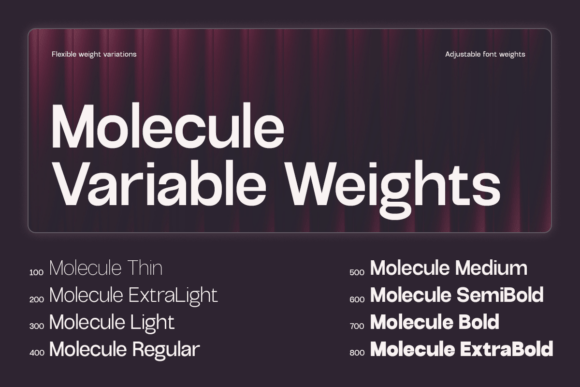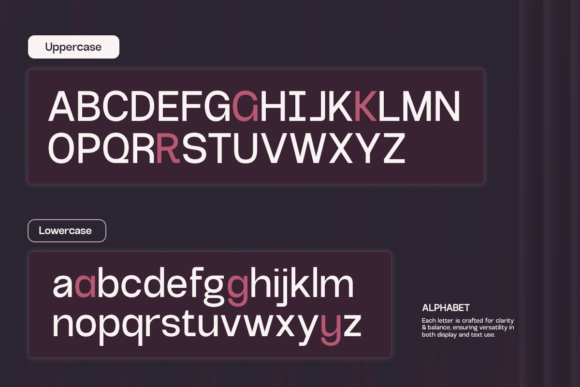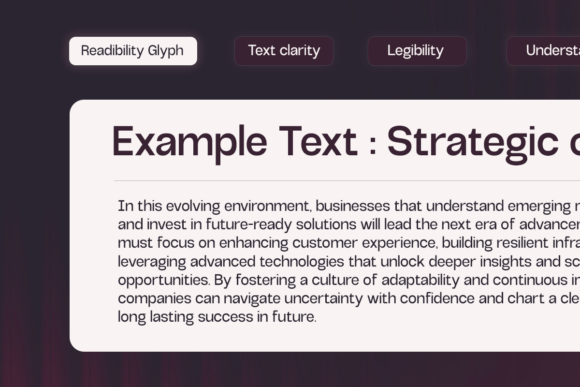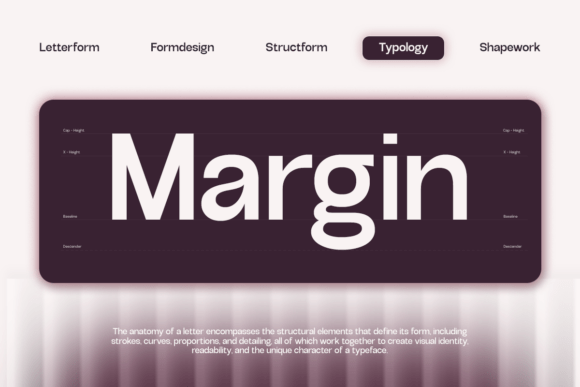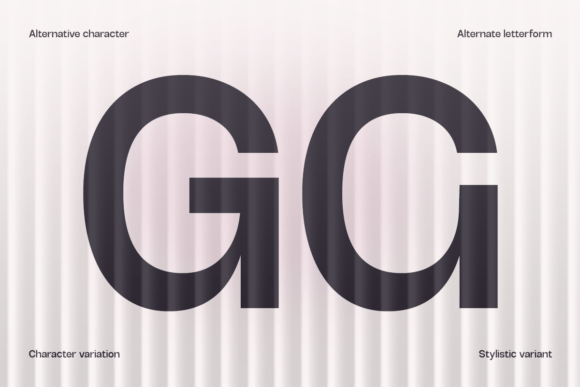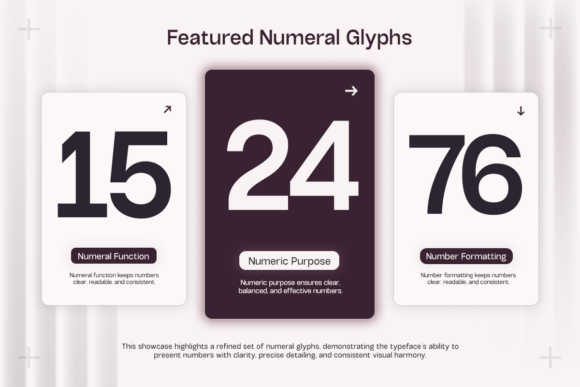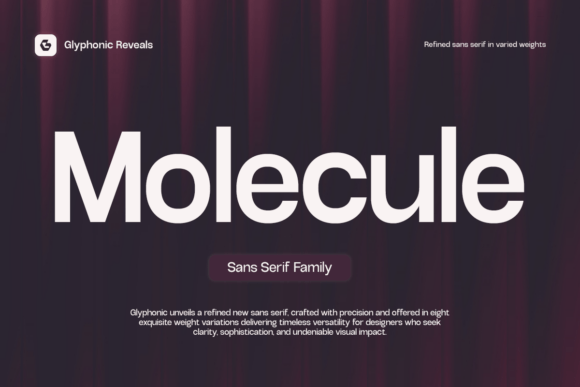
GC Molecule – Elevate Your Design with Refined Sans Serif Typography
In the realm of typography, a well-crafted font can elevate a design from ordinary to extraordinary. Introducing **GC Molecule – Refined Sans Serif**, a modern, clean, and precisely crafted typeface designed to bring clarity, refinement, and versatility to your projects. With its smooth geometry and balanced stroke details, **GC Molecule** offers a polished and contemporary voice that performs beautifully across both print and digital environments.
Designed for Clarity and Refinement
Created to embody refined simplicity without sacrificing character, **GC Molecule** is ideal for a wide range of applications, including branding, editorial layouts, technology-driven projects, minimalist design systems, and sleek visual identities. Its harmonious proportions and careful detailing make this typeface adaptable yet uniquely distinctive, ensuring that your designs stand out with sophistication and modernity.
Key Features of GC Molecule
- Modern and Clean Design: **GC Molecule** boasts a contemporary sans serif design, characterized by smooth lines and a minimalist aesthetic that ensures your typography is both current and timeless.
- Versatile Usability: Whether you’re building sharp interface designs, bold headlines, or clean and minimalistic posters, **GC Molecule** brings effortless elegance to your typography, making it suitable for a variety of projects.
- Balanced Stroke Details: The typeface features carefully balanced stroke details, providing a polished look that enhances readability and visual appeal across different mediums.
- Harmonious Proportions: The design of **GC Molecule** emphasizes harmonious proportions, ensuring that text sets are clear, readable, and aesthetically pleasing.
Applications of GC Molecule
The versatility of **GC Molecule – Refined Sans Serif** makes it an excellent choice for various design projects. Here are some of the key areas where this typeface shines:
- Branding: Establish a strong and modern brand identity with **GC Molecule**. Its clean and refined appearance makes it perfect for logos, wordmarks, and brand guidelines.
- Editorial Layouts: Enhance the readability and visual appeal of editorial content, such as magazines, newspapers, and digital publications, with the clear and elegant design of **GC Molecule**.
- Technology-Driven Projects: For tech-related projects, including app interfaces, software design, and tech blogs, **GC Molecule** offers a modern and approachable feel that resonates with digital audiences.
- Minimalist Design Systems: **GC Molecule** fits seamlessly into minimalist design systems, providing a clean and unobtrusive typography solution that lets your content shine.
- Sleek Visual Identities: Create a sleek and contemporary visual identity for your brand or project with **GC Molecule**. Its refined design ensures a professional and sophisticated look.
Why Choose GC Molecule?
In a world where typography plays a crucial role in design, **GC Molecule – Refined Sans Serif** stands out for its unique blend of modernity, clarity, and elegance. Here are some reasons why **GC Molecule** should be your go-to typeface:
- Unique Design: The typeface’s smooth geometry and balanced strokes offer a fresh and distinctive look that sets it apart from more traditional sans serif fonts.
- High Readability: **GC Molecule** is designed with readability in mind, making it suitable for both body text and headlines, whether in print or digital formats.
- Flexibility: With its versatile design, **GC Molecule** can be used across a wide range of projects, from corporate branding to creative design.
- Elegance: The refined and polished appearance of **GC Molecule** brings an element of sophistication to your designs, ensuring they leave a lasting impression.
**GC Molecule – Refined Sans Serif** is more than just a typeface; it’s a design tool that brings clarity, modernity, and elegance to your projects. Whether you’re a designer, a craftsperson, or a brand looking to establish a strong visual identity, **GC Molecule** offers the perfect blend of style and functionality. Enhance your design with the polished clarity and refined modern style of **GC Molecule**, and take your typography to the next level.